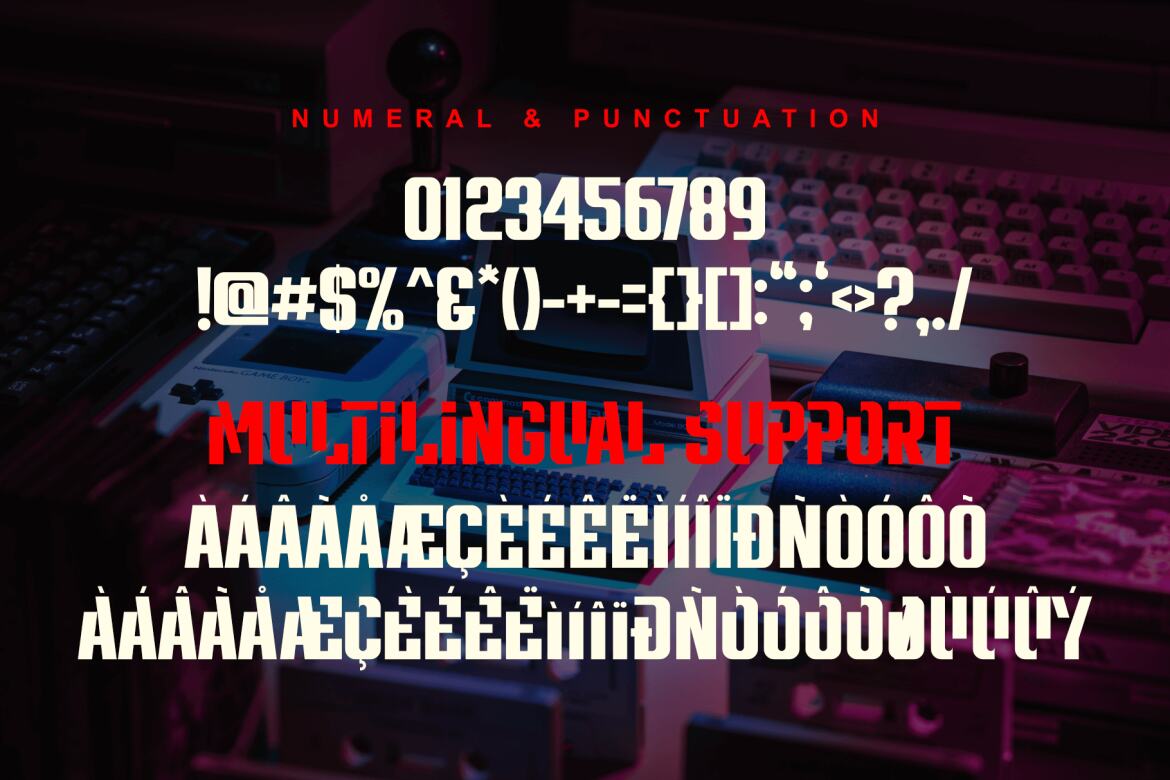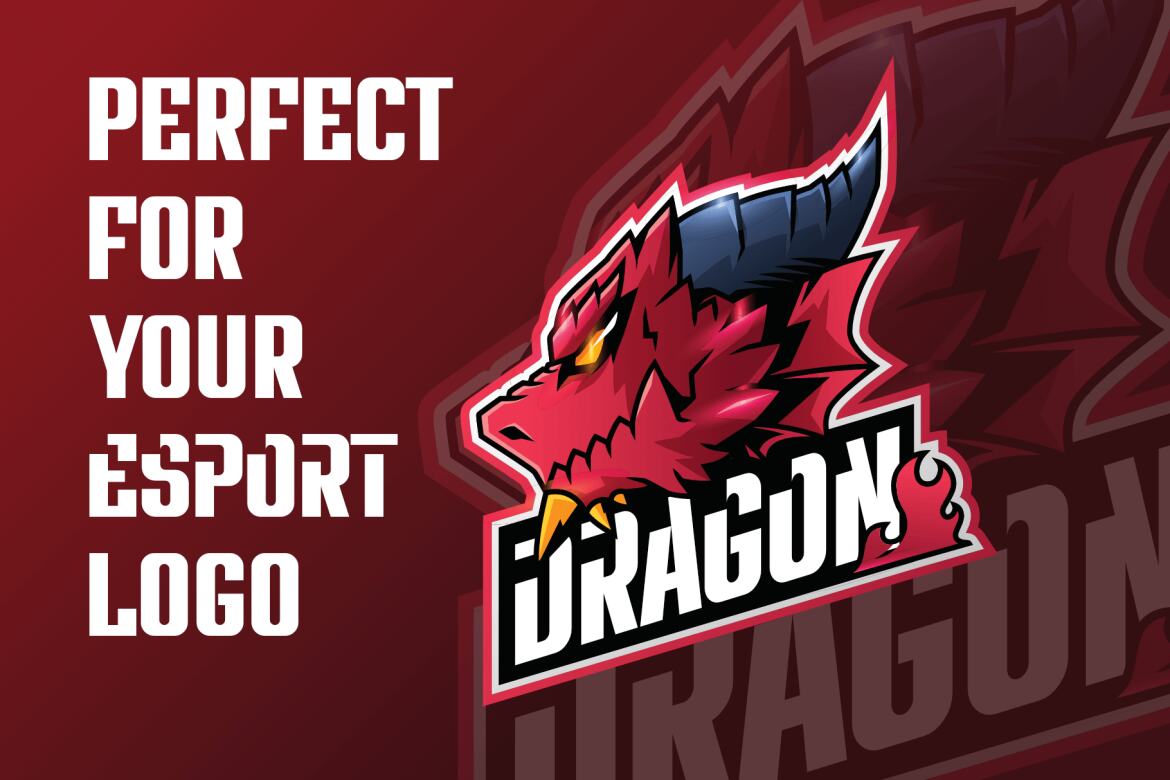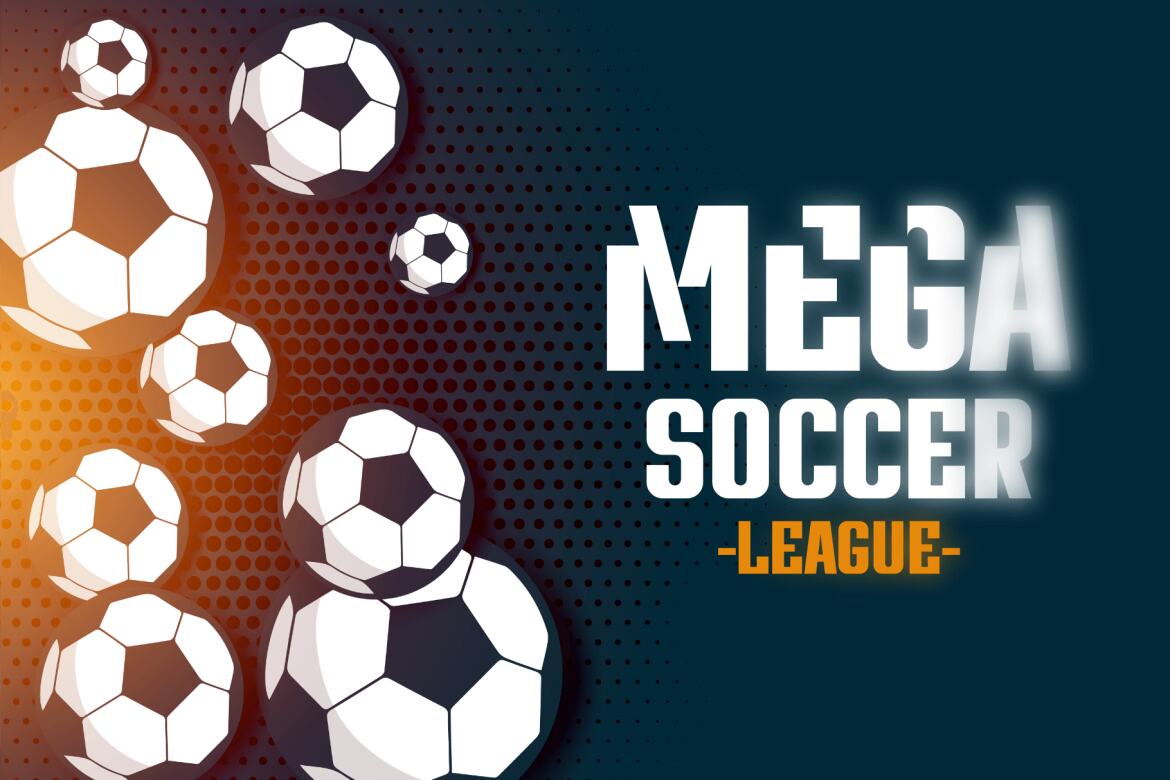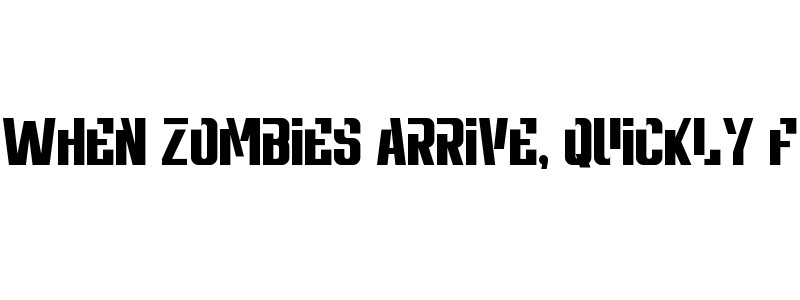
Untrouble - FREE Futuristic Font
Untrouble
Untrouble- Elegant Futuristic Font is a powerful font that is here to answer design problems. the presence of this font will maximize the project to the point of perfection.
Untrouble is perfect for design, esports, logos, social media, branding, advertising, product design, handwritten quotes, product packaging, headers, posters, merchandise, and other designs.